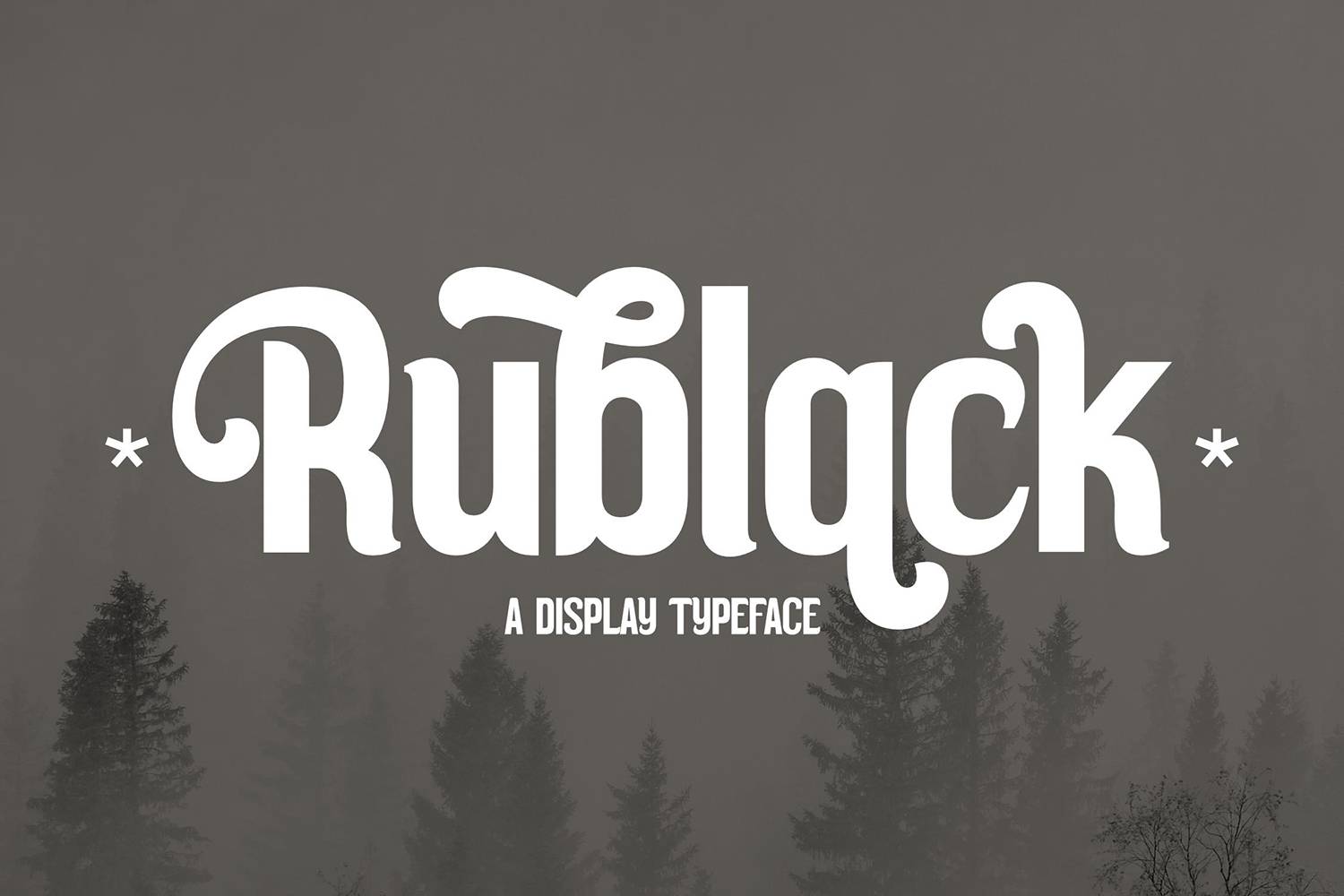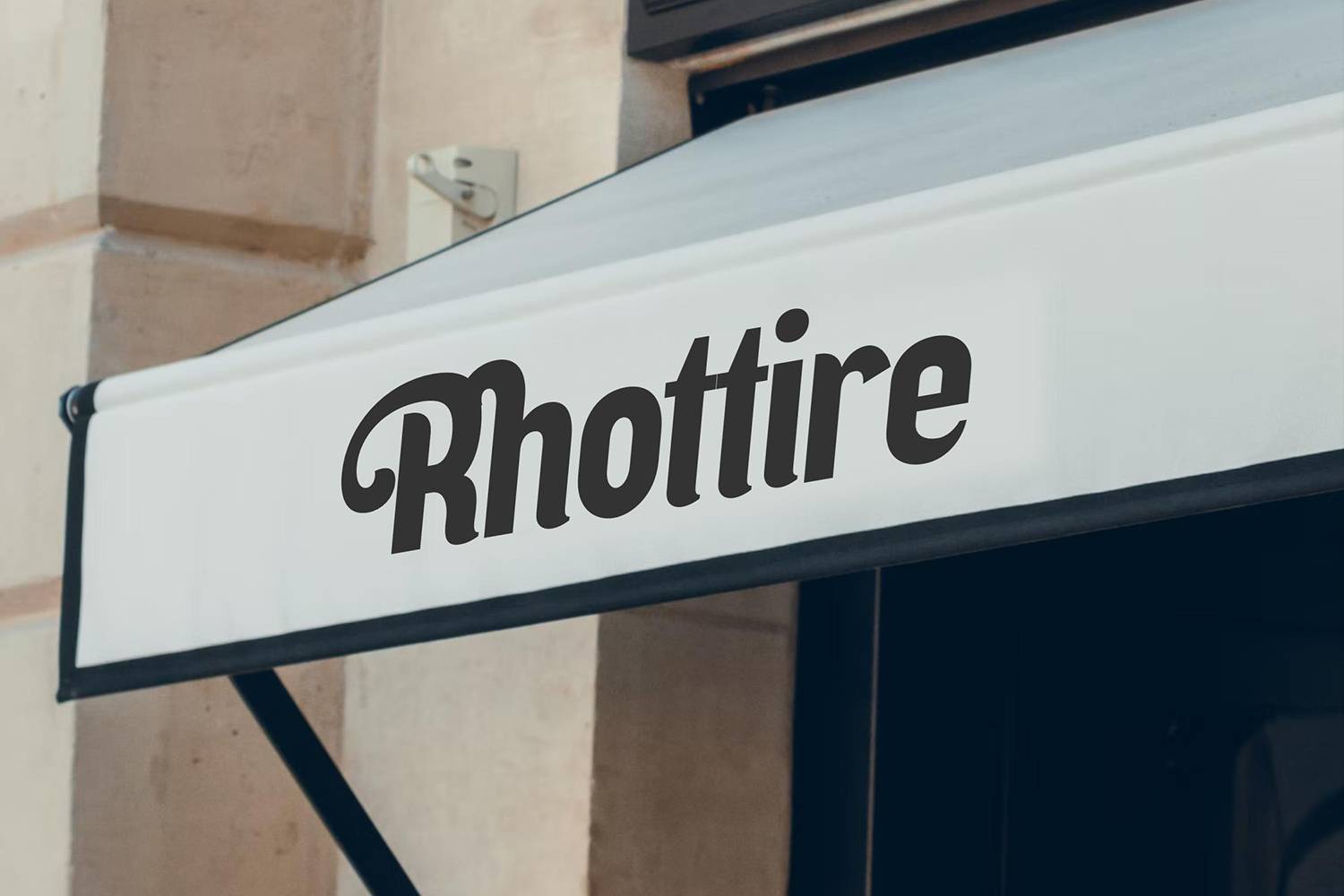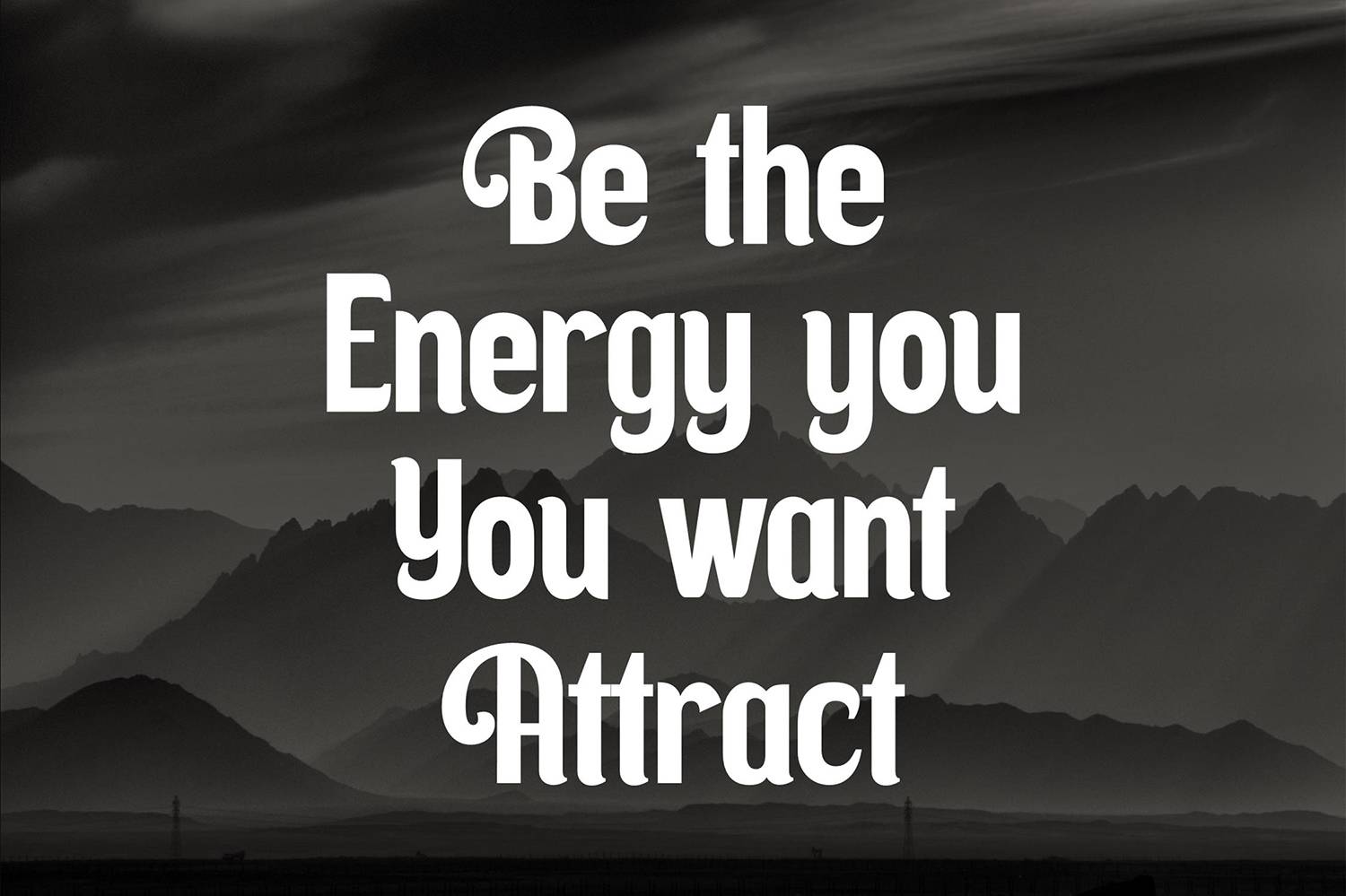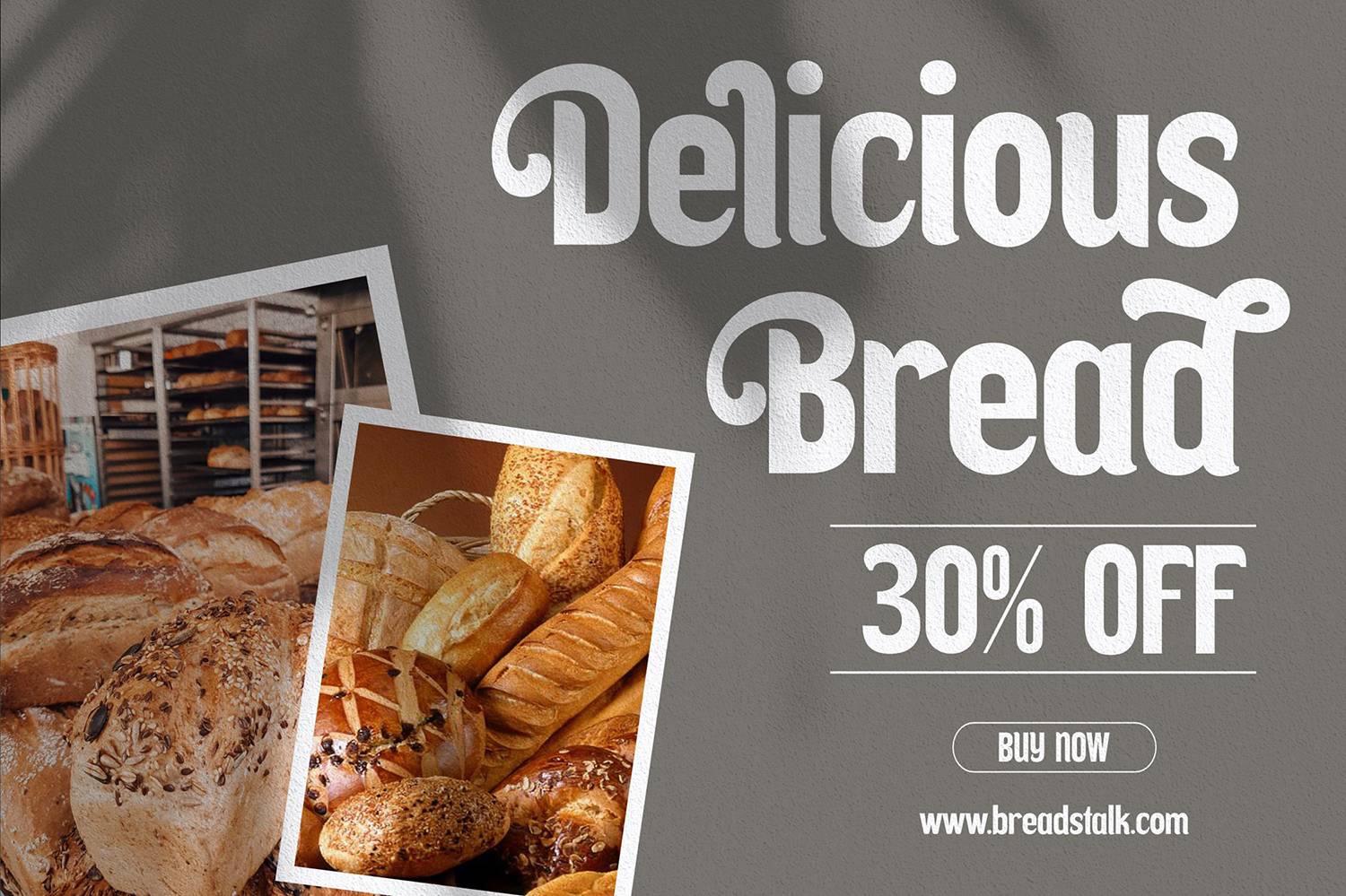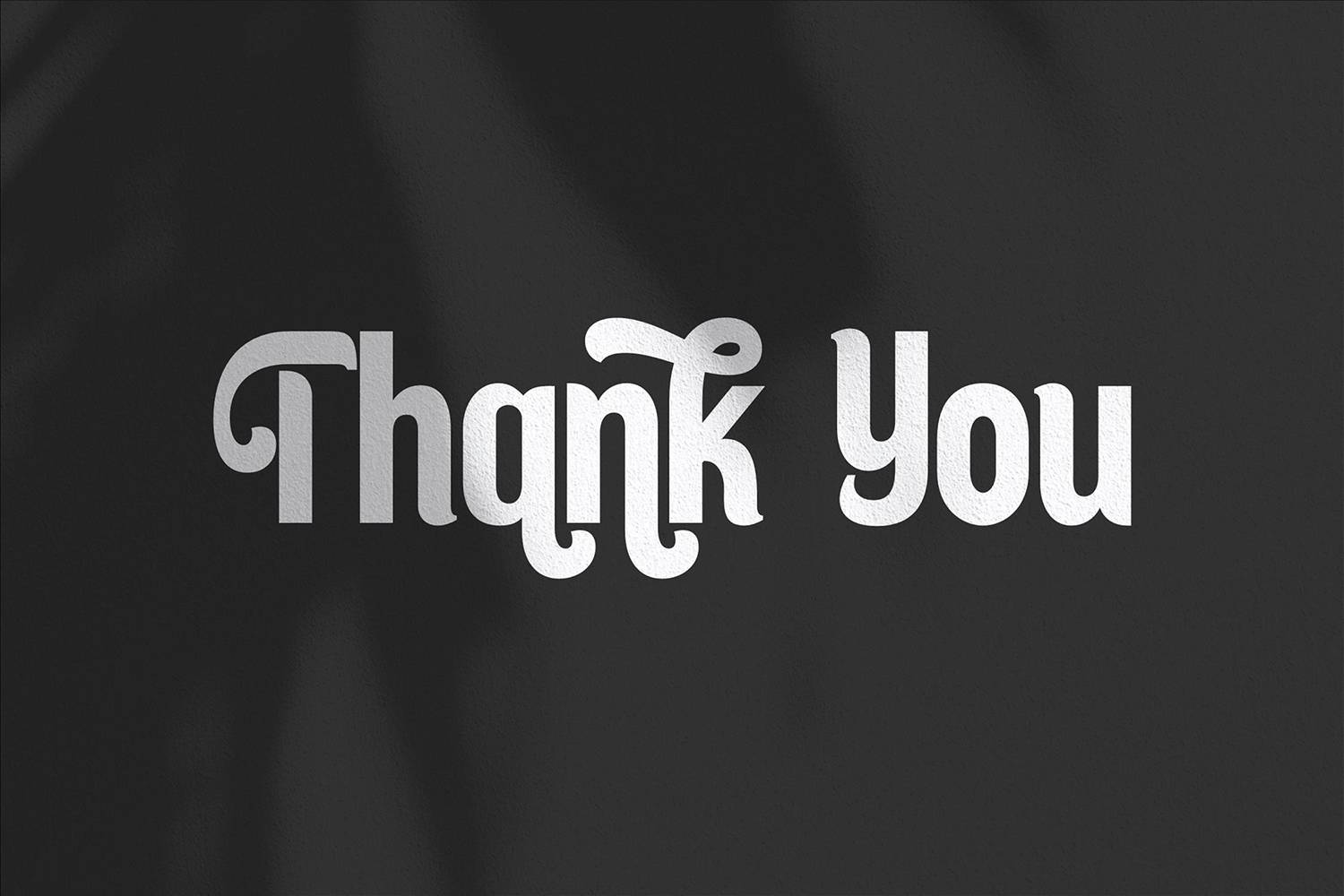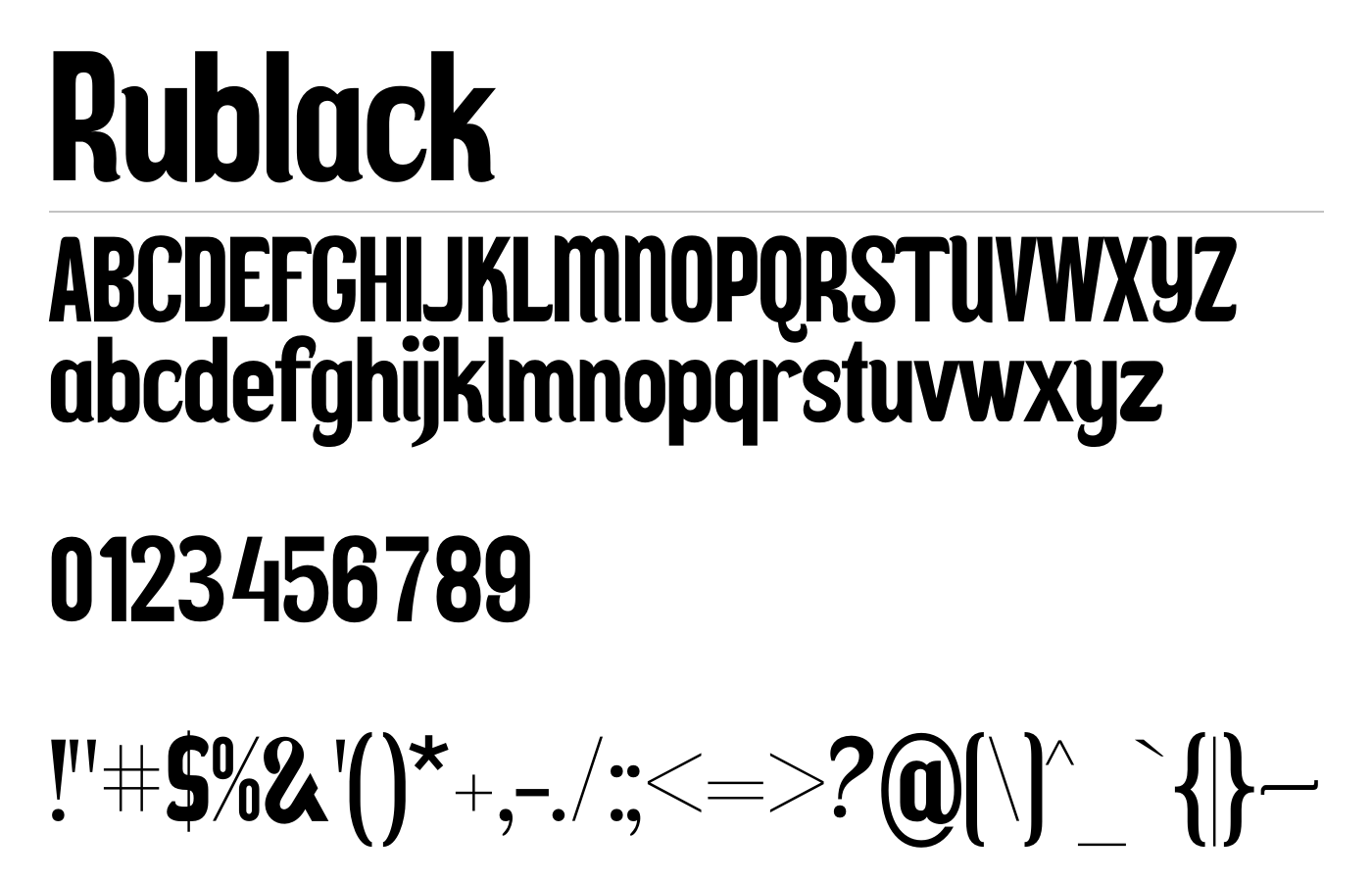
Rublack is a bold and condensed sans serif font with a strong, modern presence. Its tall x-height and tight spacing give it a compact, impactful look, while subtle curves and unique letter shapes add personality without sacrificing readability. This font works well for headlines, branding, and editorial design where a confident and stylish impression is needed.
Rublack Font
About Rublack Font
| Font family | Rublack Font |
| Designer | Storytype Studio |